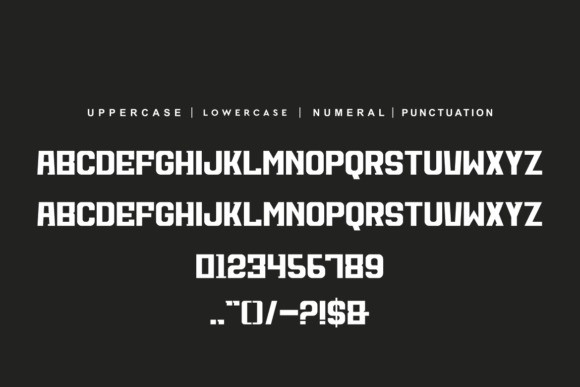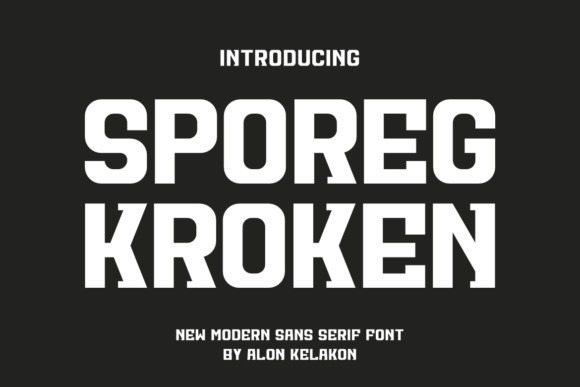
Sporeg Kroken Font
Sporeg Kroken Sans Serif Font is a cool and bold sans serif font. Fall in love with it and bring your projects to the highest levels!